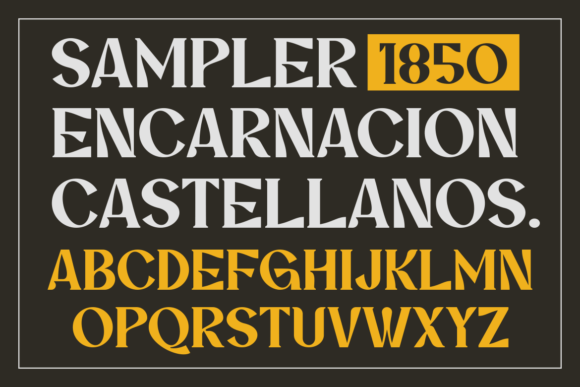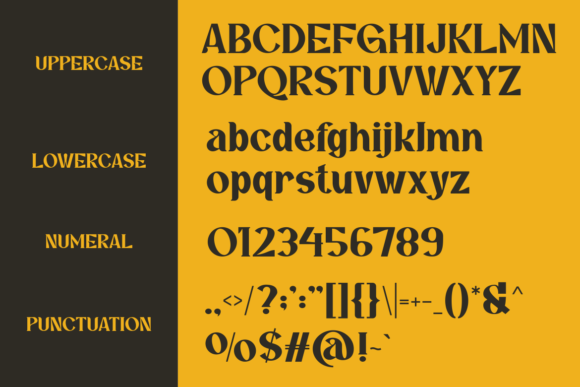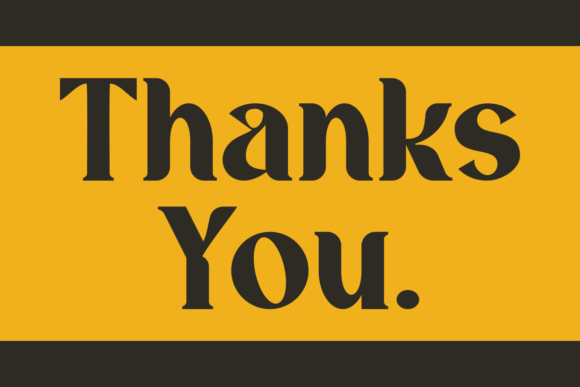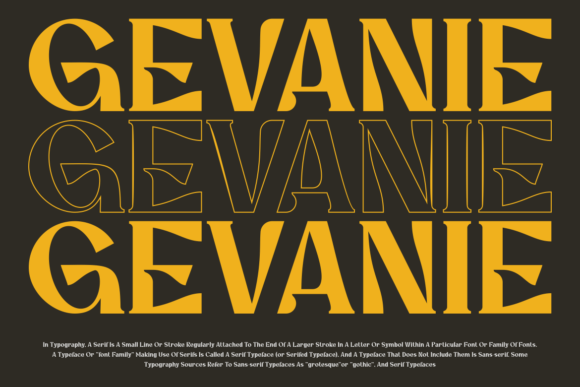
Introducing Gevanie: The Ultimate Modern Display Font
In the world of typography, a new star has emerged. Meet **GEVANIE**, a modern display font that redefines the boundaries of elegance and sharpness. This stunning font is a masterpiece of meticulous design, precision, and craftsmanship. Every letter in Gevanie is carefully crafted to achieve perfect harmony, balance, and alignment, making it an ideal choice for designers and crafters seeking to elevate their visual creations.
The Art of Typography: A Balance of Elegance and Sharpness
Gevanie’s design is rooted in the principles of typographic excellence. The font’s creator has poured their expertise and passion into crafting a typeface that exudes sophistication, poise, and modernity. Each letterform is meticulously designed to ensure that every curve, line, and edge contributes to a cohesive and refined aesthetic. The result is a font that is both visually striking and effortlessly legible.
Design Features and Characteristics
Gevanie boasts a range of design features that make it an exceptional choice for various design applications:
- Balanced Proportions: Every letter in Gevanie is carefully proportioned to ensure harmony and consistency, creating a visually appealing and cohesive look.
- Impeccable Alignment: The font’s precise alignment ensures that every letter interacts seamlessly with its neighbors, producing a smooth and elegant reading experience.
- Sharp and Crisp Edges: Gevanie’s sharp edges and clean lines give it a modern and sleek appearance, perfect for designs that demand attention and sophistication.
- Elegant Curves: The font’s curves are expertly crafted to add a touch of elegance and refinement, making Gevanie suitable for a wide range of design contexts.
Gevanie’s versatility makes it an excellent choice for various design projects, including:
- Print Design: Gevanie is ideal for creating stunning print materials, such as brochures, posters, and business cards, where a professional and elegant look is essential.
- Promotional Materials: The font’s modern and sleek appearance makes it perfect for branding, advertising, and marketing materials that require a bold and eye-catching typography.
- Magazine Layouts: Gevanie’s exceptional legibility and elegant design make it an excellent choice for magazine and editorial design, where readability and style are paramount.
Why Choose Gevanie?
In a world where typography plays a crucial role in visual communication, Gevanie offers a unique combination of style, sophistication, and versatility. By choosing Gevanie, designers and crafters can:
- Elevate Their Designs: Gevanie’s exceptional design and typographic excellence can instantly elevate a design project, making it more engaging, refined, and professional.
- Save Time: The font’s precision and consistency save designers time and effort, allowing them to focus on the creative aspects of their project.
- Stand Out: Gevanie’s unique and distinctive style ensures that designs stand out from the crowd, making them more noticeable and memorable.
In conclusion, Gevanie is a game-changing modern display font that redefines the world of typography. Its meticulous design, precision, and craftsmanship make it an ideal choice for designers and crafters seeking to create stunning visual creations. With its versatility, elegance, and sharpness, Gevanie is poised to become a go-to font for a wide range of design applications. Experience the power of Gevanie and take your designs to the next level.